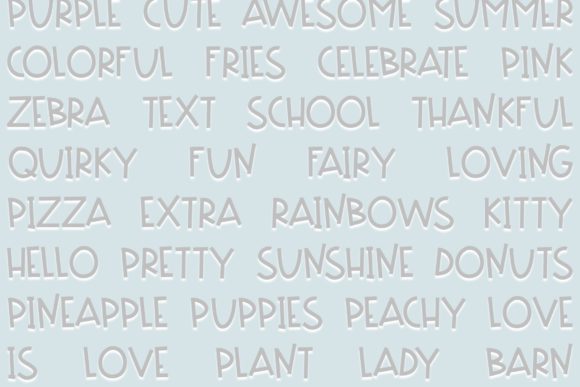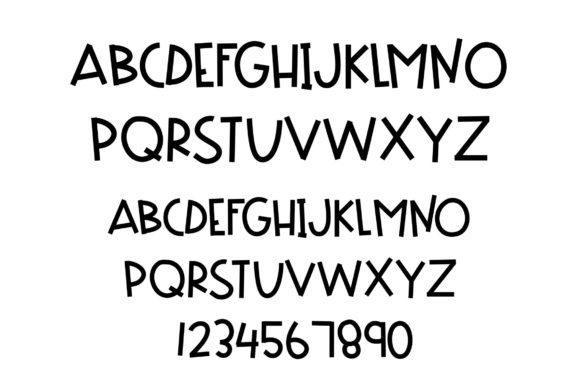
Soccer Mom Font
db-ku.com - Script & Handwritten -- Soccer Mom is a quirky handwritten font, carefully handcrafted to become a true favorite. This enchanting font will turn any creative idea into a true standout.